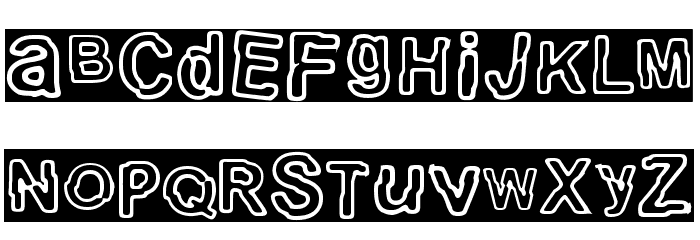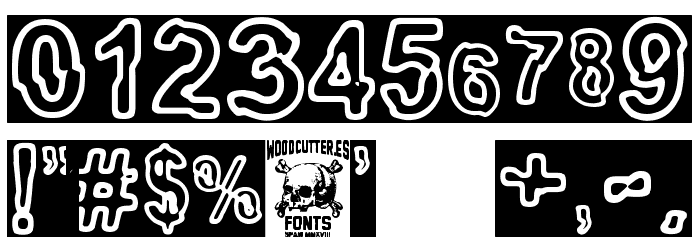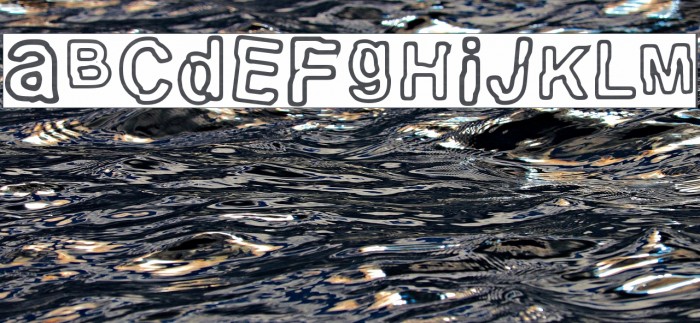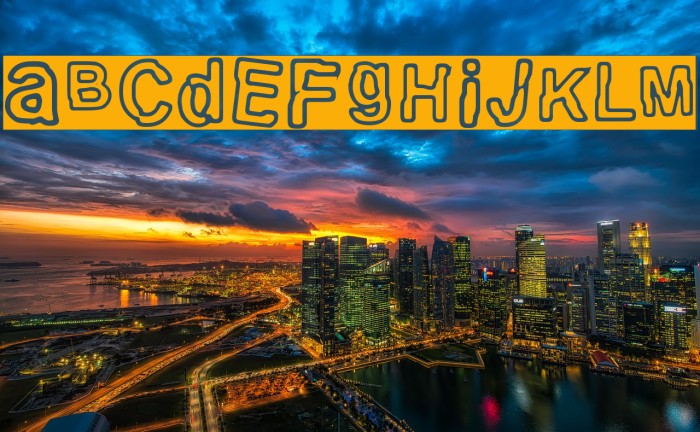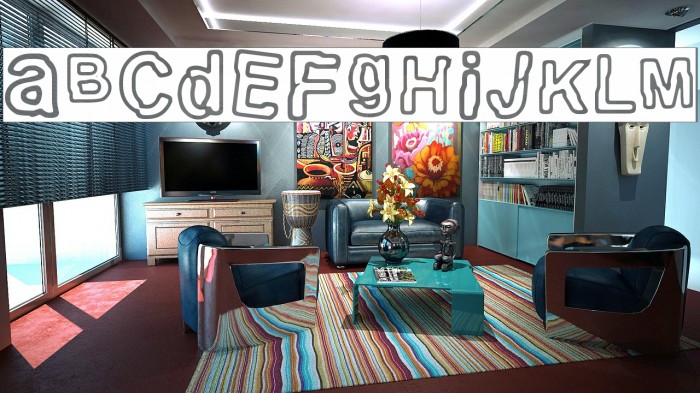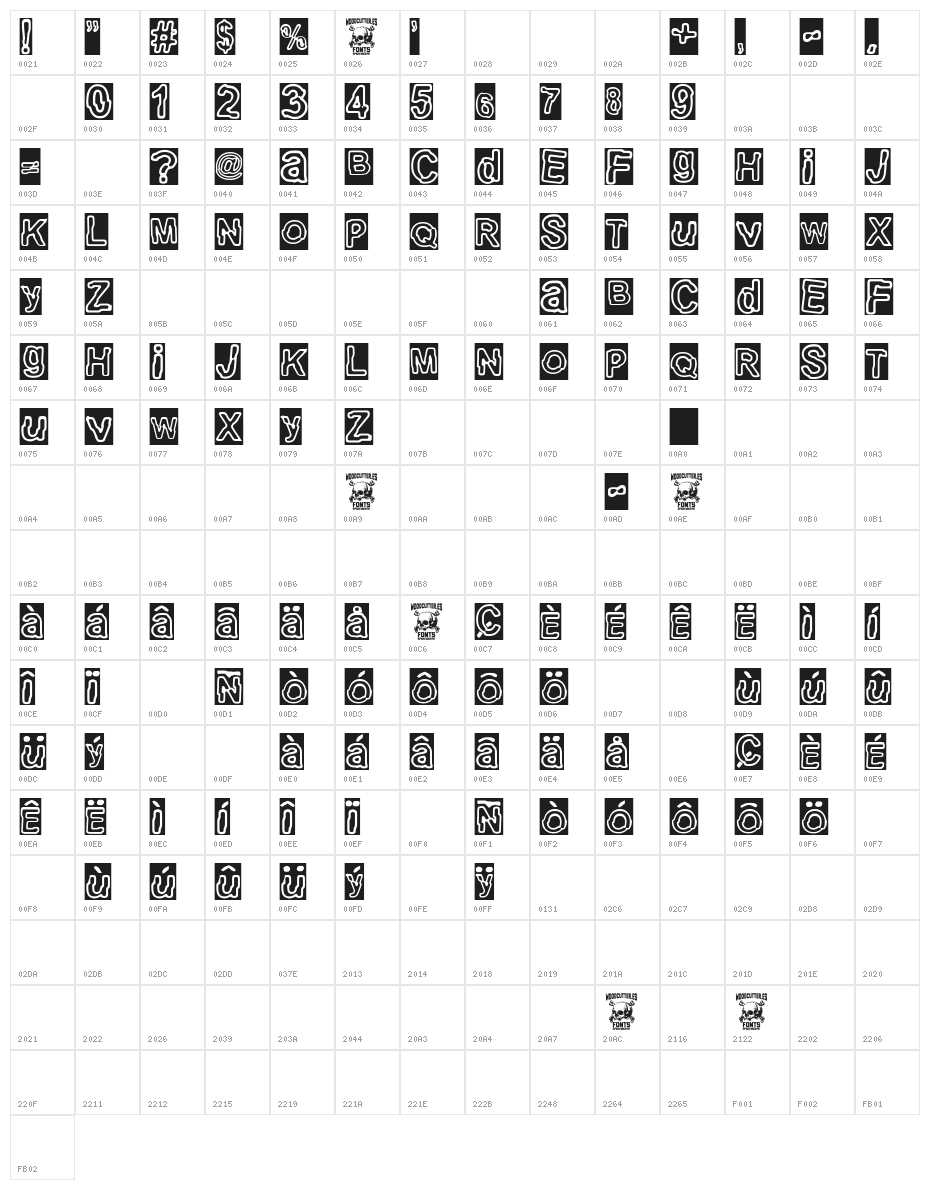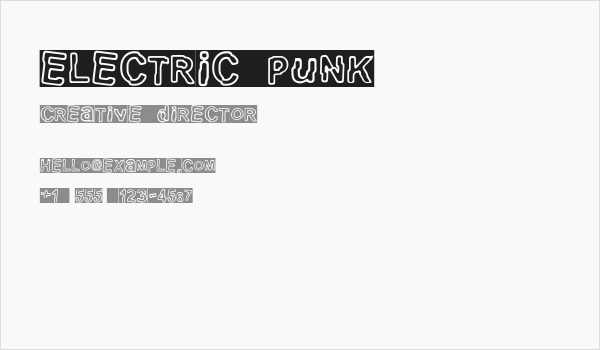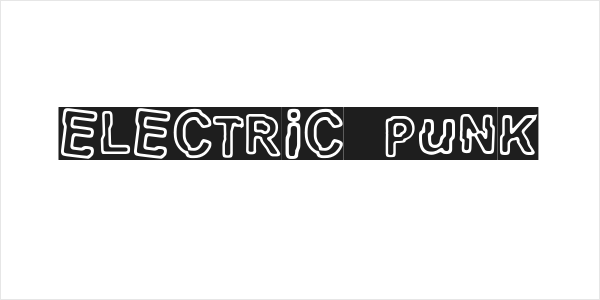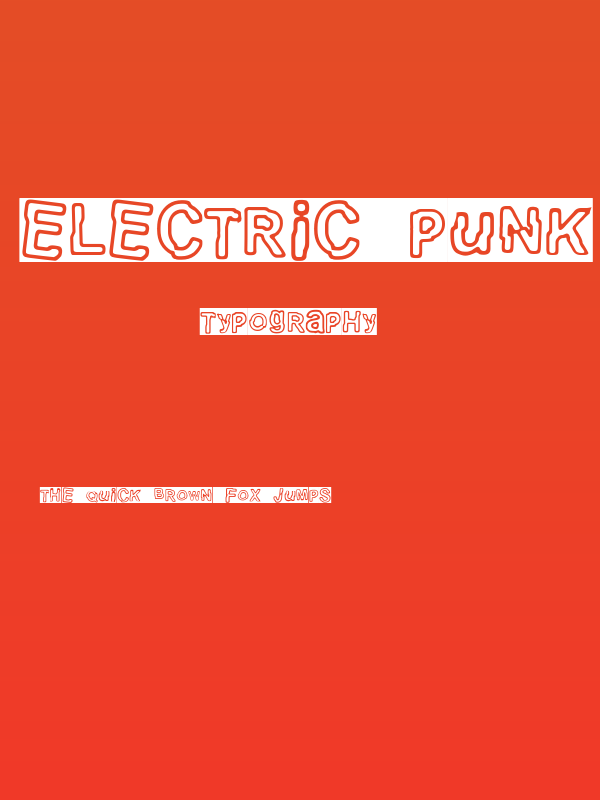
electric Punk Font
This font features a bold, playful design with a distinct outline style. Each character is encapsulated within a thick border, giving it a three-dimensional appearance. The letters have a hand-drawn quality, with irregularities that add to its charm. The uppercase and lowercase letters maintain a consistent style, while the numbers and special characters follow the same outlined aesthetic. This font is eye-catching and has a modern, edgy vibe, making it suitable for creative and unconventional projects.
A bold, outlined font with a playful, hand-drawn style.
- Font: electric Punk
- Proposed Projects: Ideal for posters, album covers, video game graphics, and any project needing a bold, artistic touch.